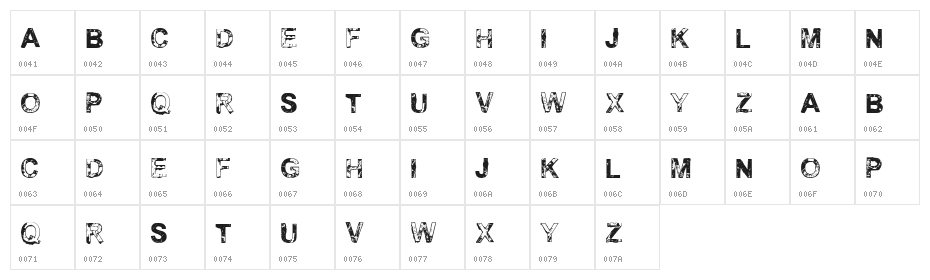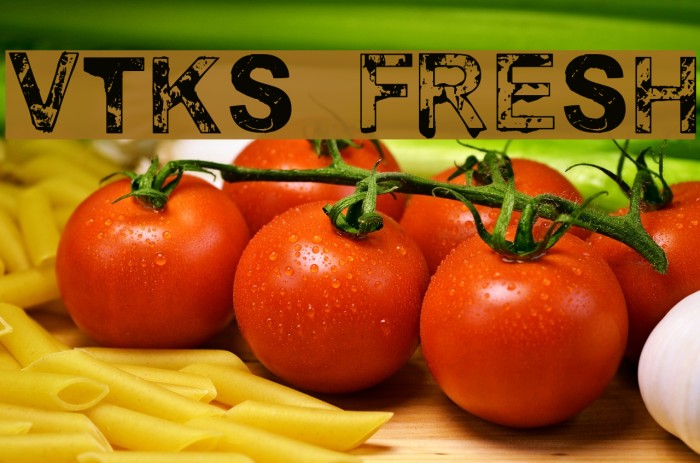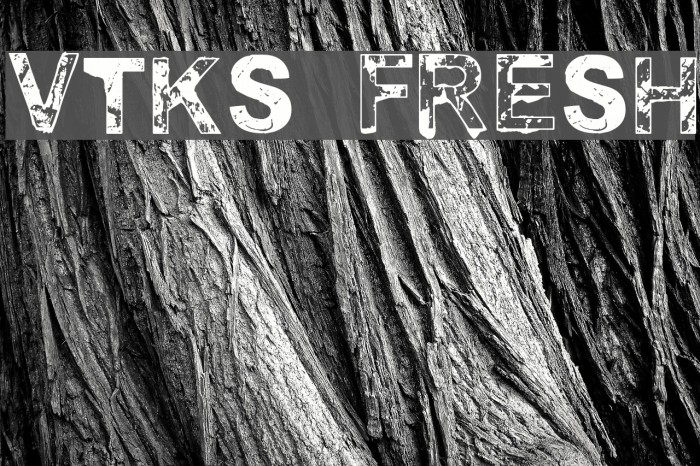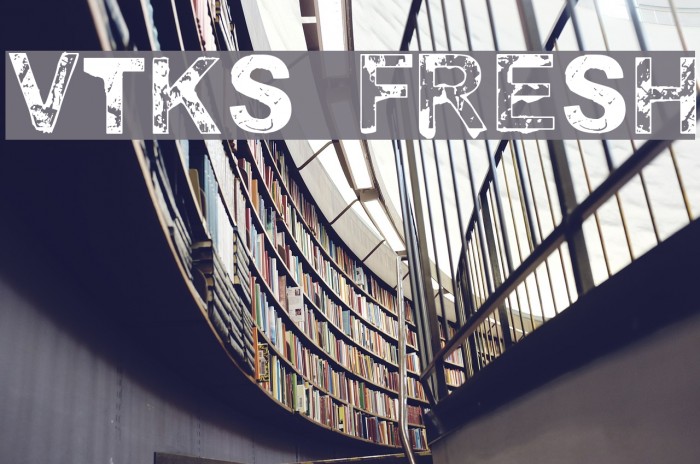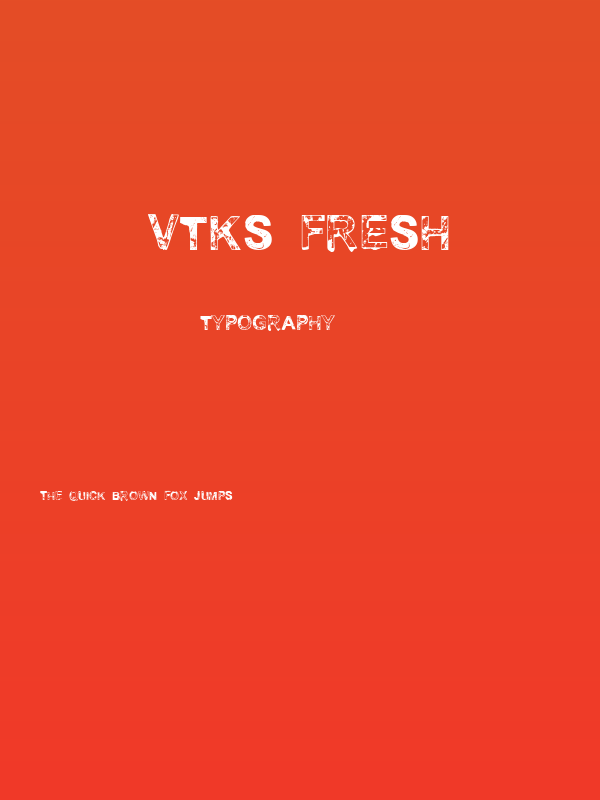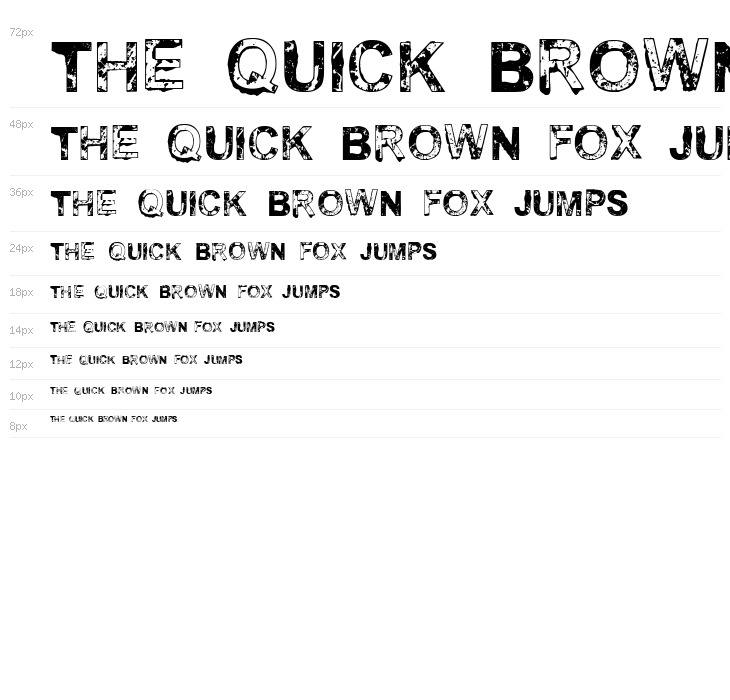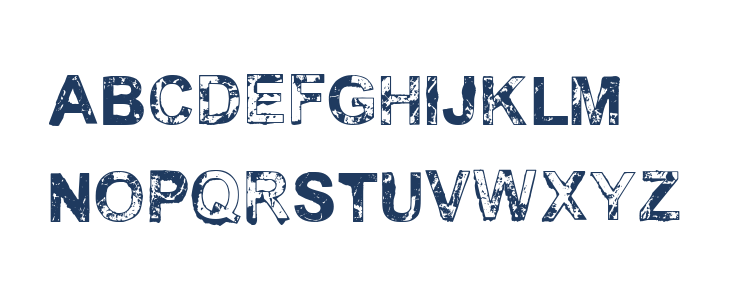
vtks fresh Font
vtks fresh Description
This font features a bold, distressed style with a grunge texture that gives it a rugged and worn appearance. Each letter is characterized by irregular edges and a patchy, weathered look, creating a sense of depth and texture. The uppercase letters are prominent and impactful, making them ideal for attention-grabbing designs. The font's unique style is reminiscent of urban street art or vintage posters, offering a raw and edgy aesthetic. Its boldness and distinctive texture make it suitable for projects that require a strong visual impact.
| Overall Style | Grunge, Urban, Edgy |
| Proposed Projects | Ideal for posters, album covers, streetwear branding, and any design needing an edgy, urban feel. |